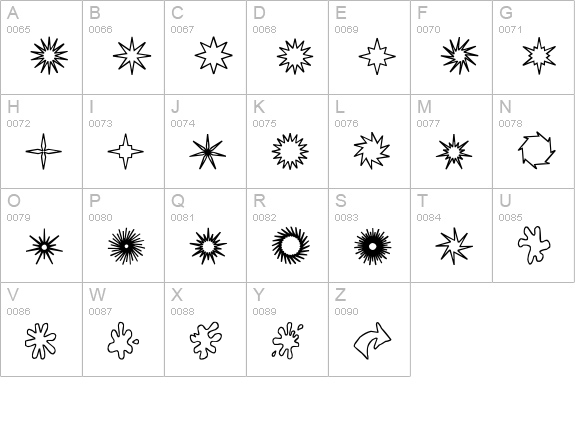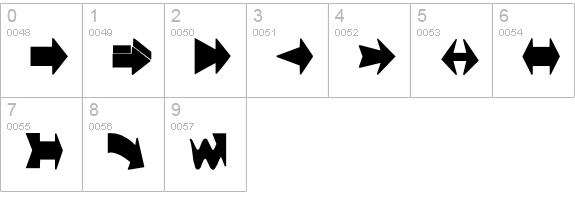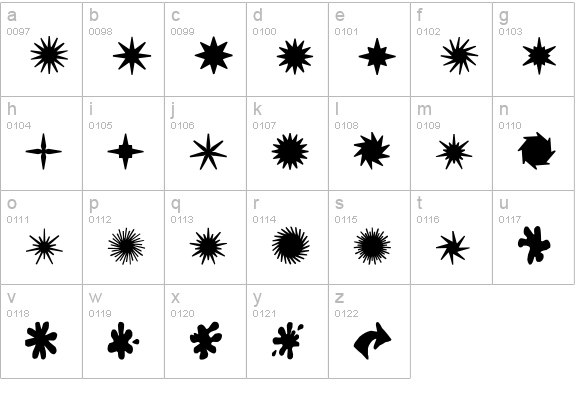
Stars splats & arrows font is a captivating and versatile typeface that adds a touch of whimsy and creativity to any design project. This unique font features a delightful combination of stars, splats, and arrows, making it perfect for adding a playful and artistic element to your designs. Whether you're working on a poster, logo, or social media graphics, this font will effortlessly grab attention and leave a lasting impression. What makes Stars splats & arrows font even more appealing is that it is completely free to download. You can easily access this font at FontsMarket.com, a trusted source for high-quality and diverse fonts. With just a few clicks, you can enhance your design projects with the charming and eye-catching elements provided by this font. With Stars splats & arrows font, you'll have the freedom to experiment and explore various design possibilities. From creating eye-catching headlines to crafting unique typography-based illustrations, this font allows you to unleash your creativity and bring your vision to life. Its playful and dynamic nature makes it suitable for a wide range of projects, from children's book covers to invitations, branding materials, and more. Download Stars splats & arrows font today for free at FontsMarket.com and discover the endless creative opportunities it offers. With its charming and distinctive characters, this font will surely elevate your designs and leave a lasting impression on your audience. Embrace the freedom to create captivating and imaginative designs with Stars splats & arrows font.